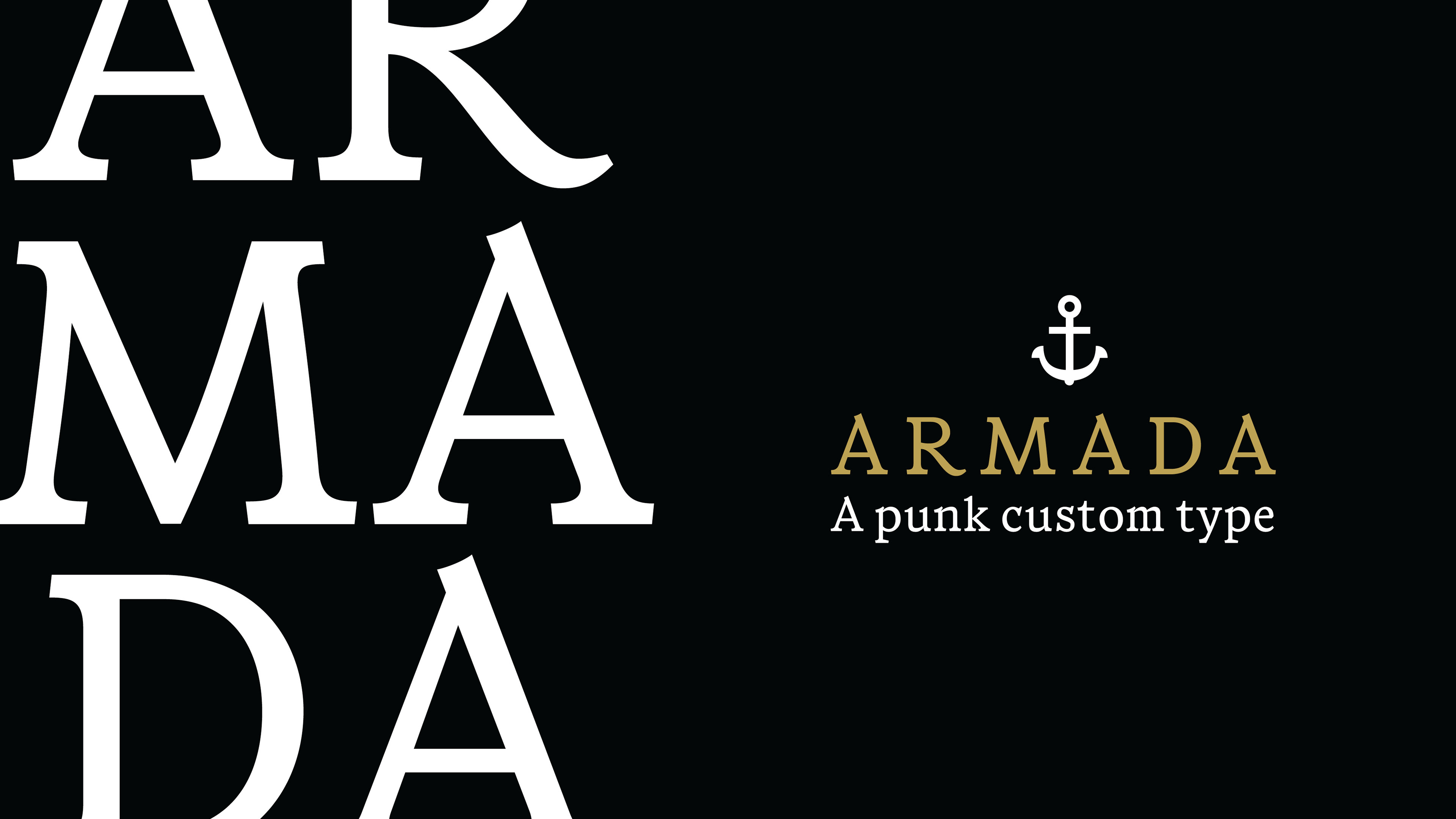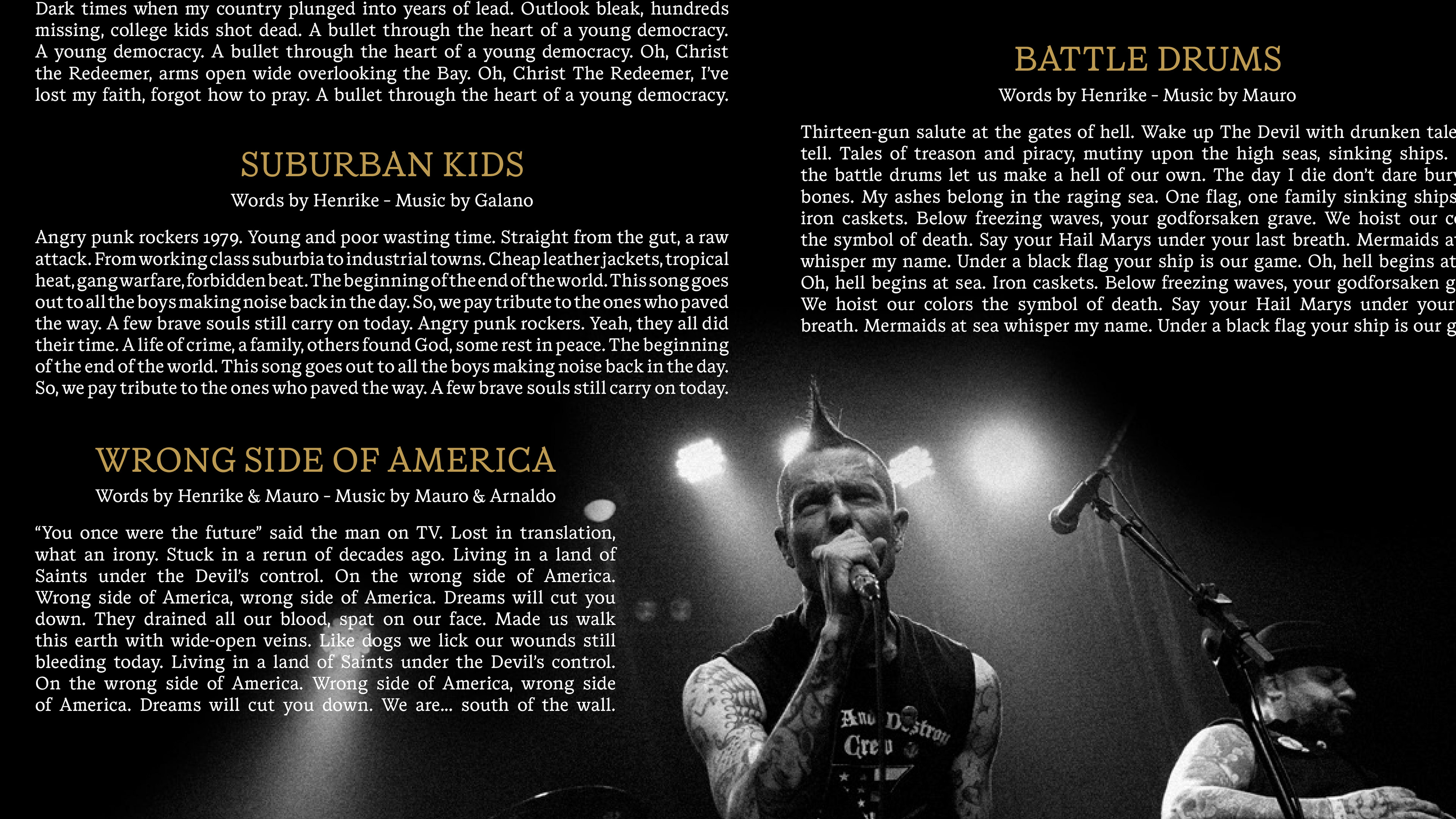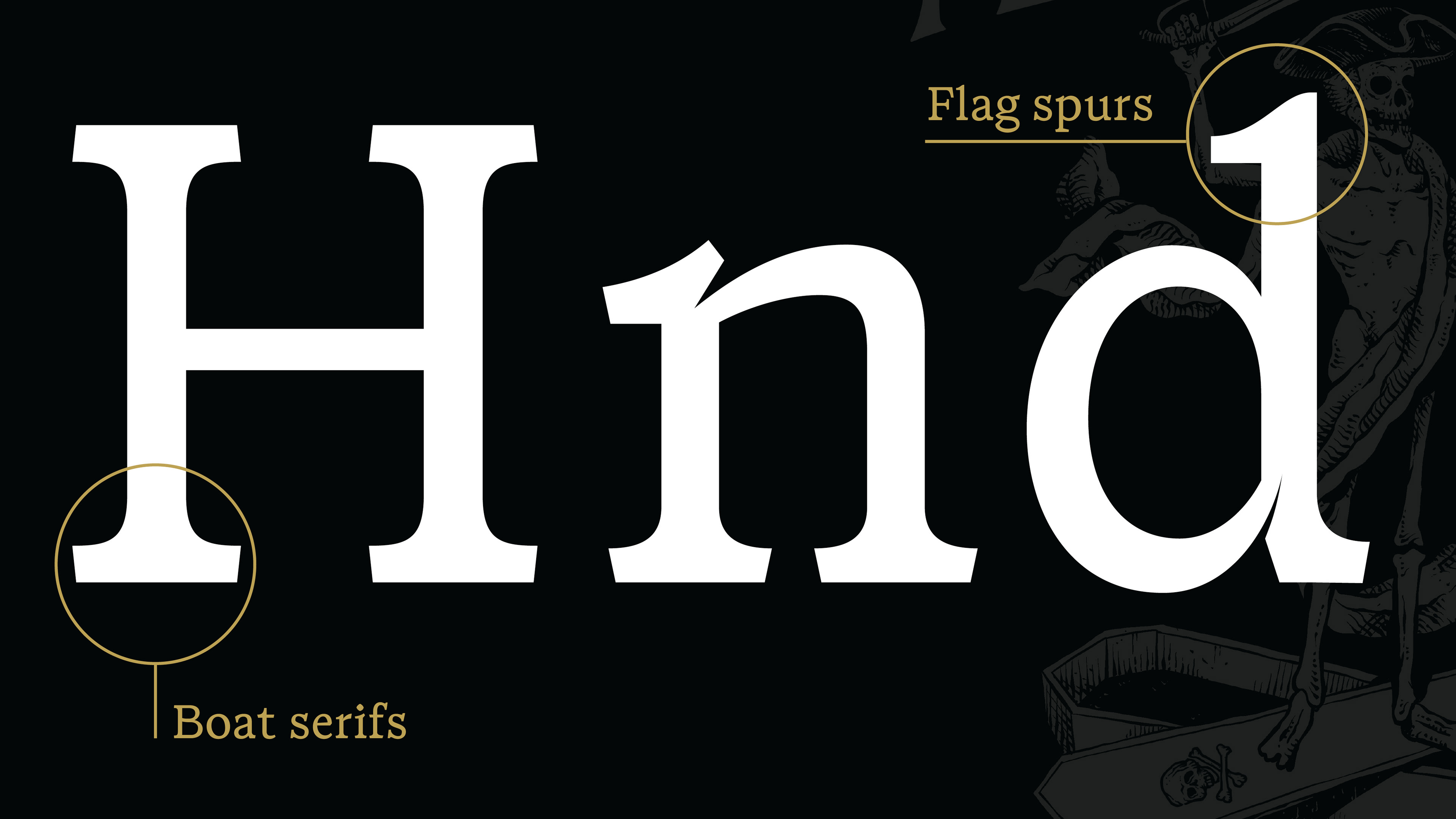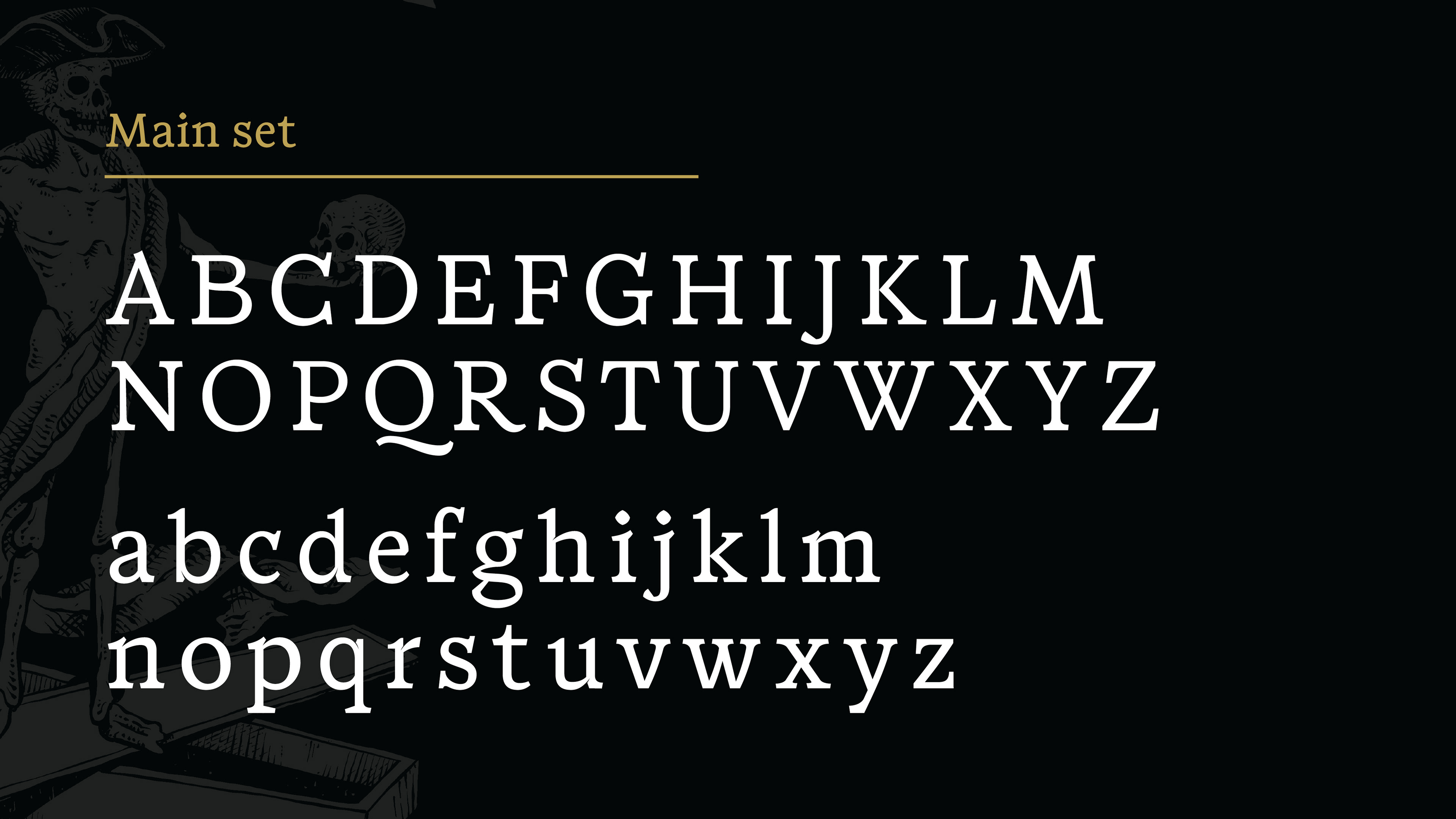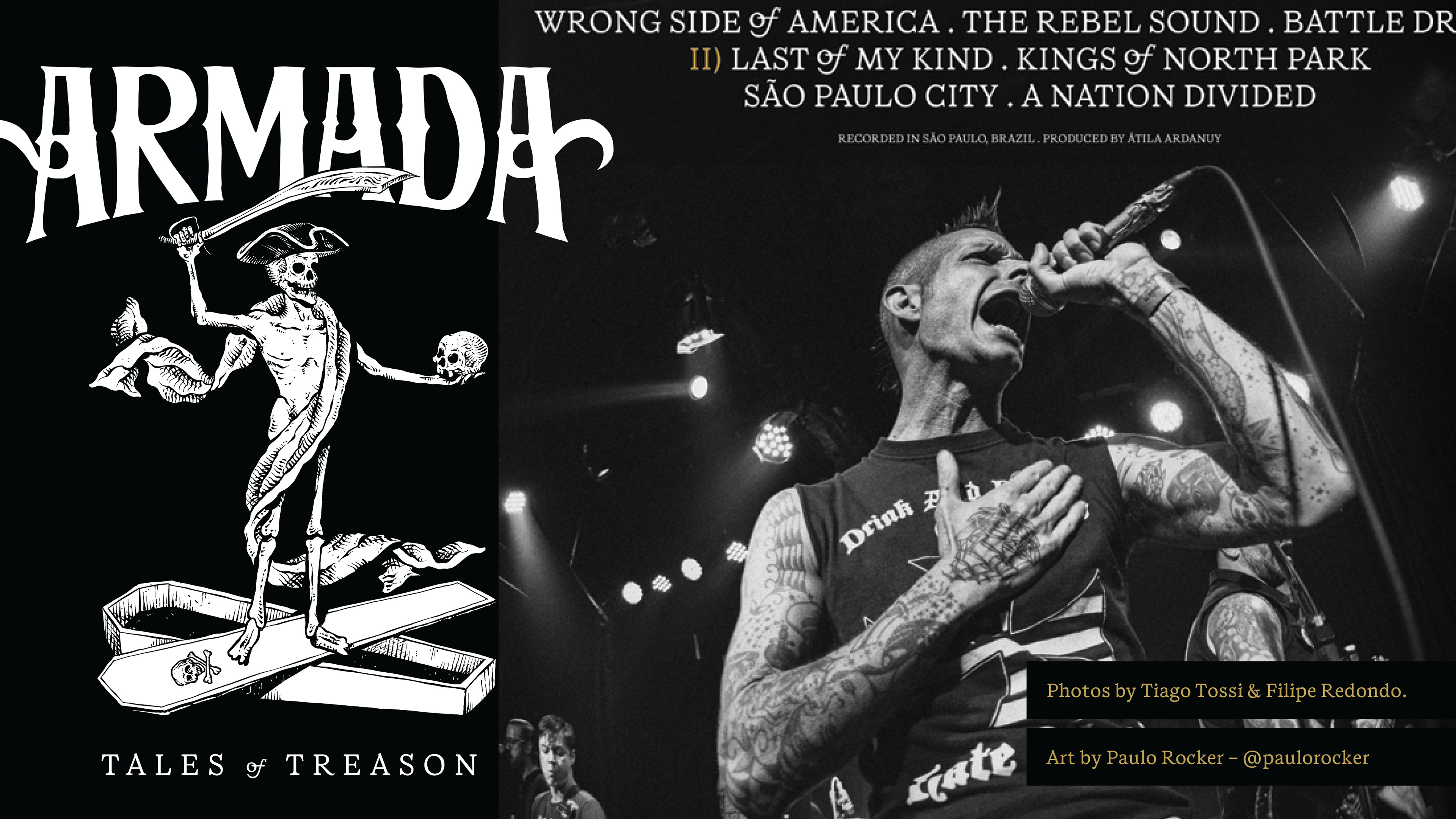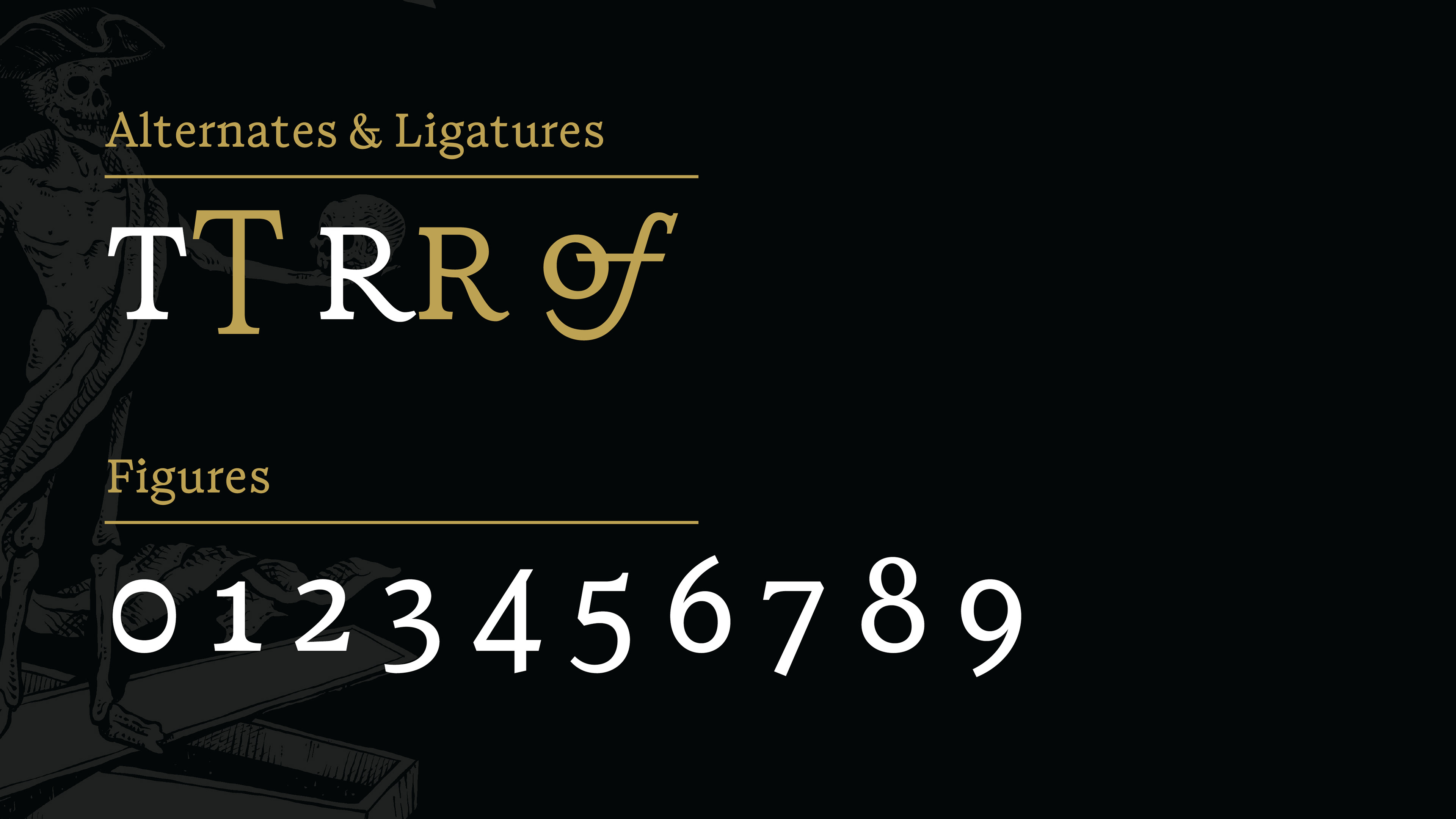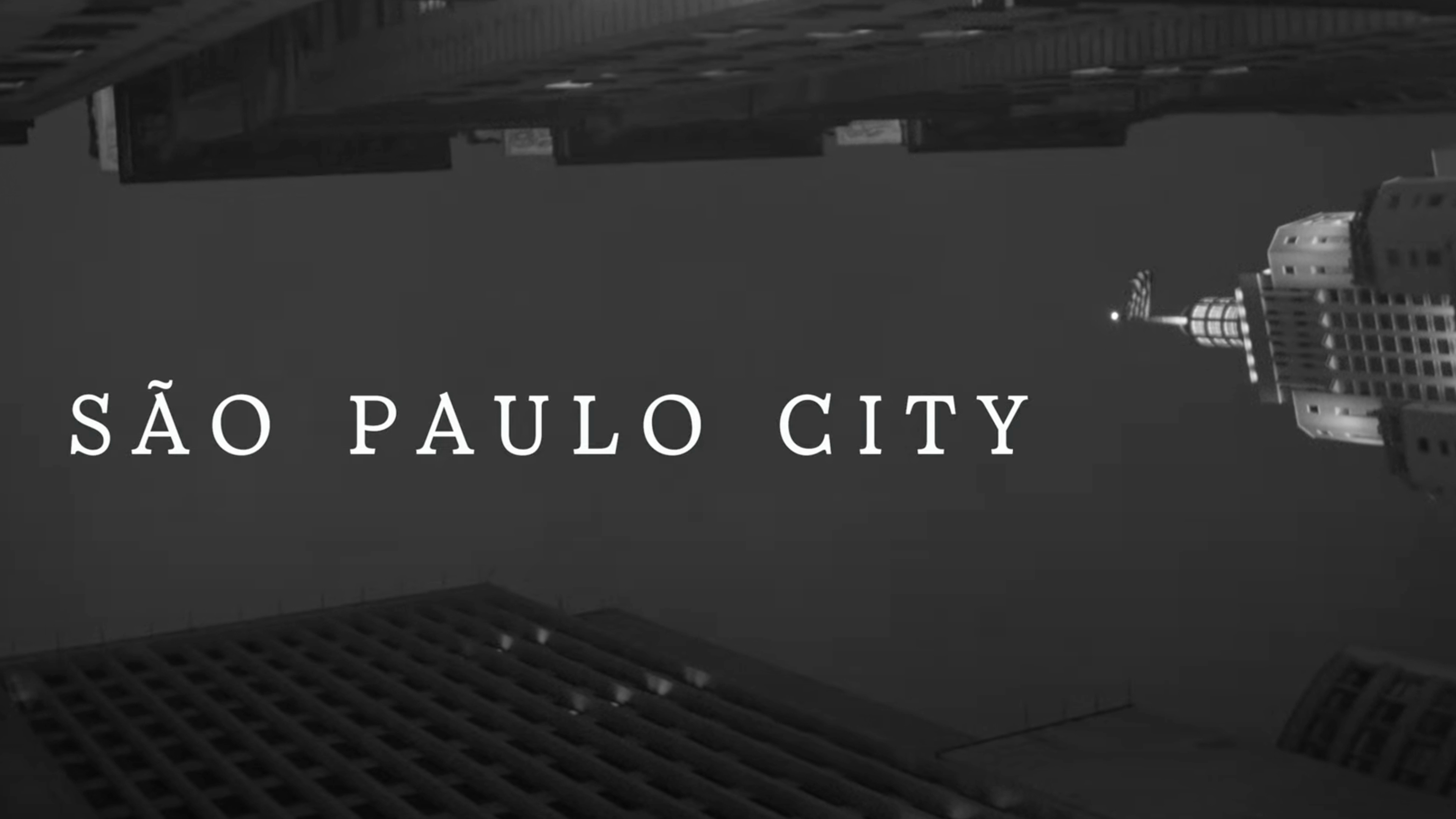
The Brazilian Punk Rock Band Armada reached me to create a custom typeface for their second album Tales of Treason, launched in May 10th 2024. The ambiguous Portuguese word ‘Armada’ means group of boats and also a person with armory. The typeface was mainly inspired by letterings from old maps and also have boat details like the serif forms and anchor icon.